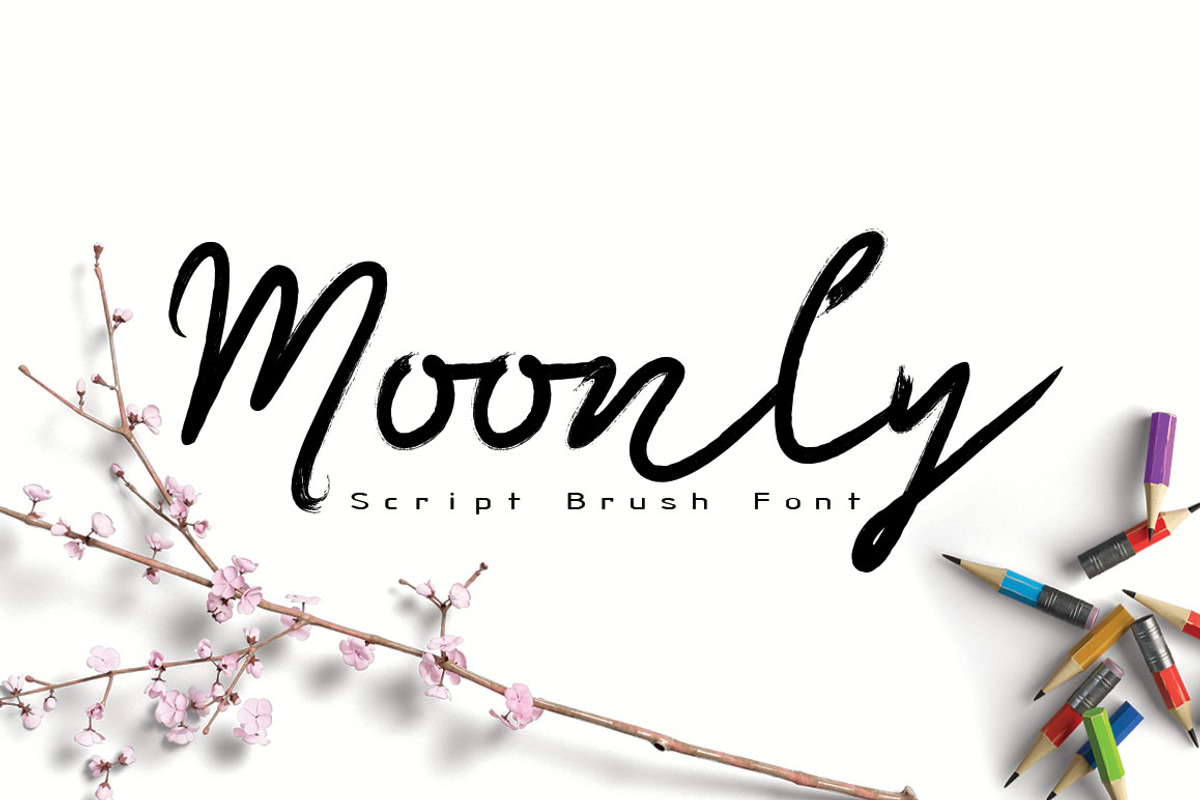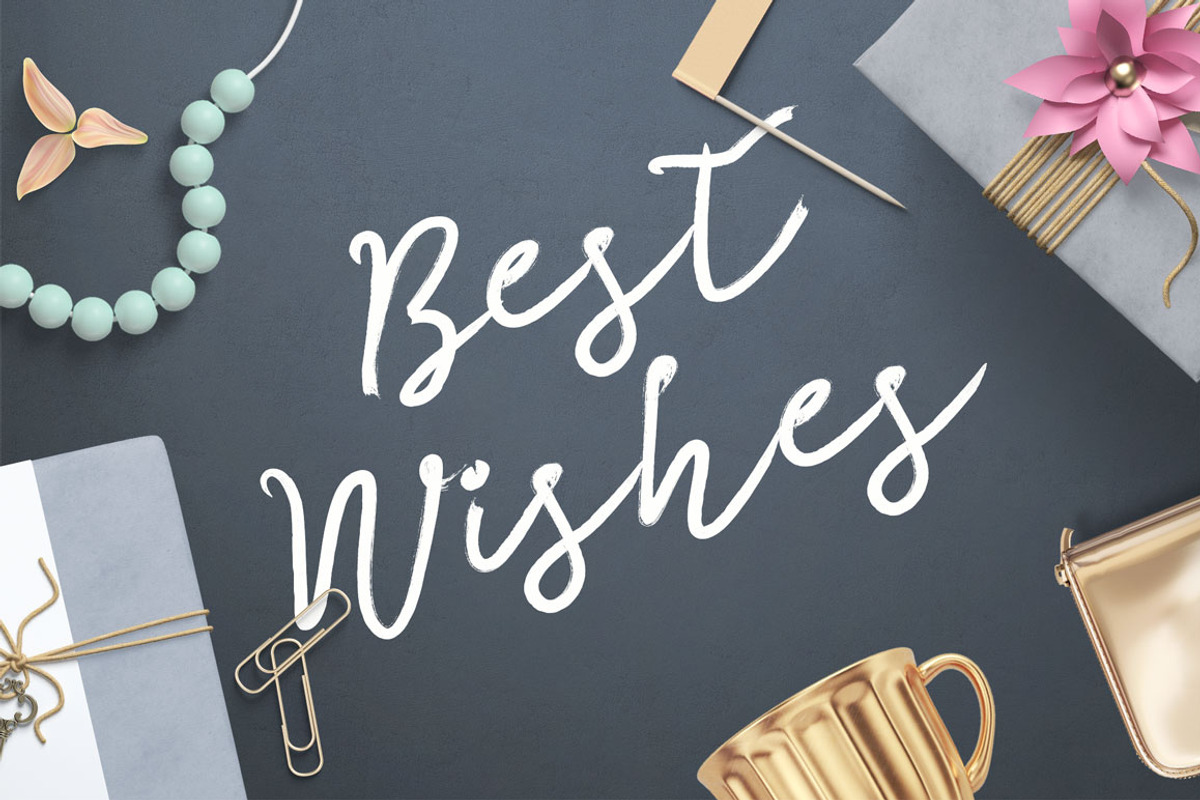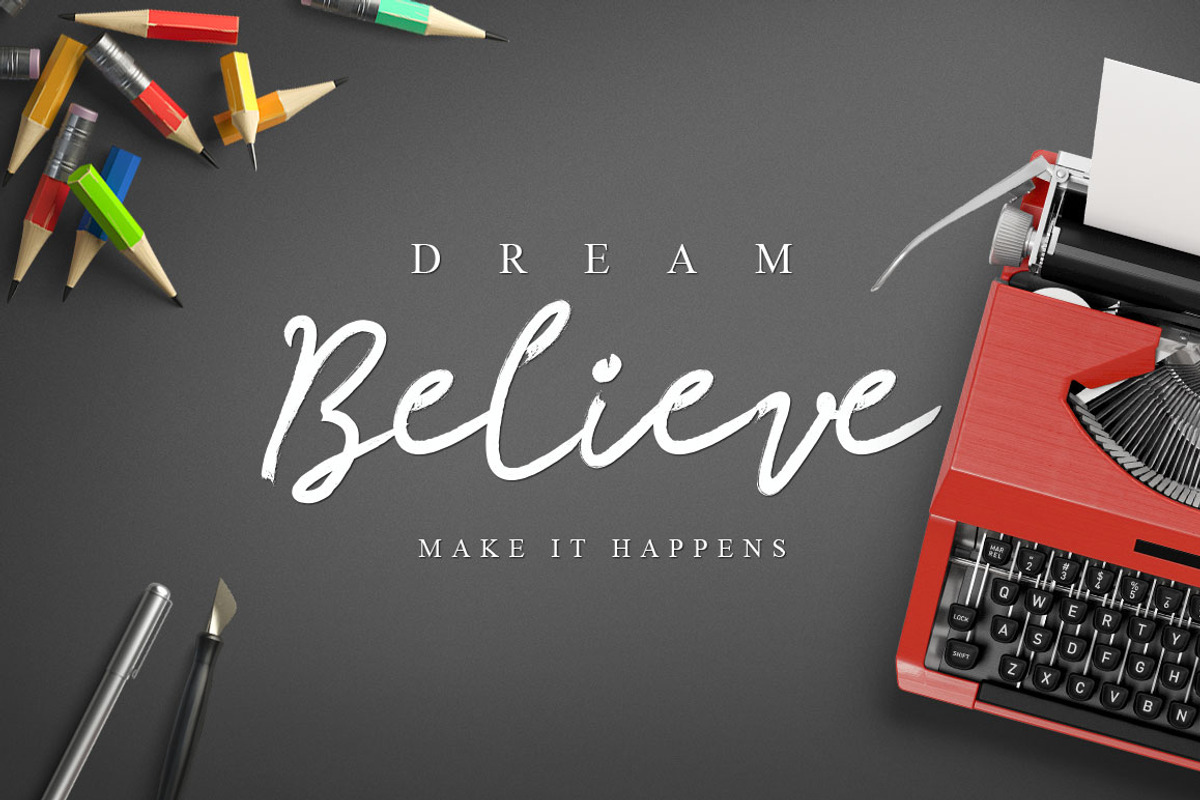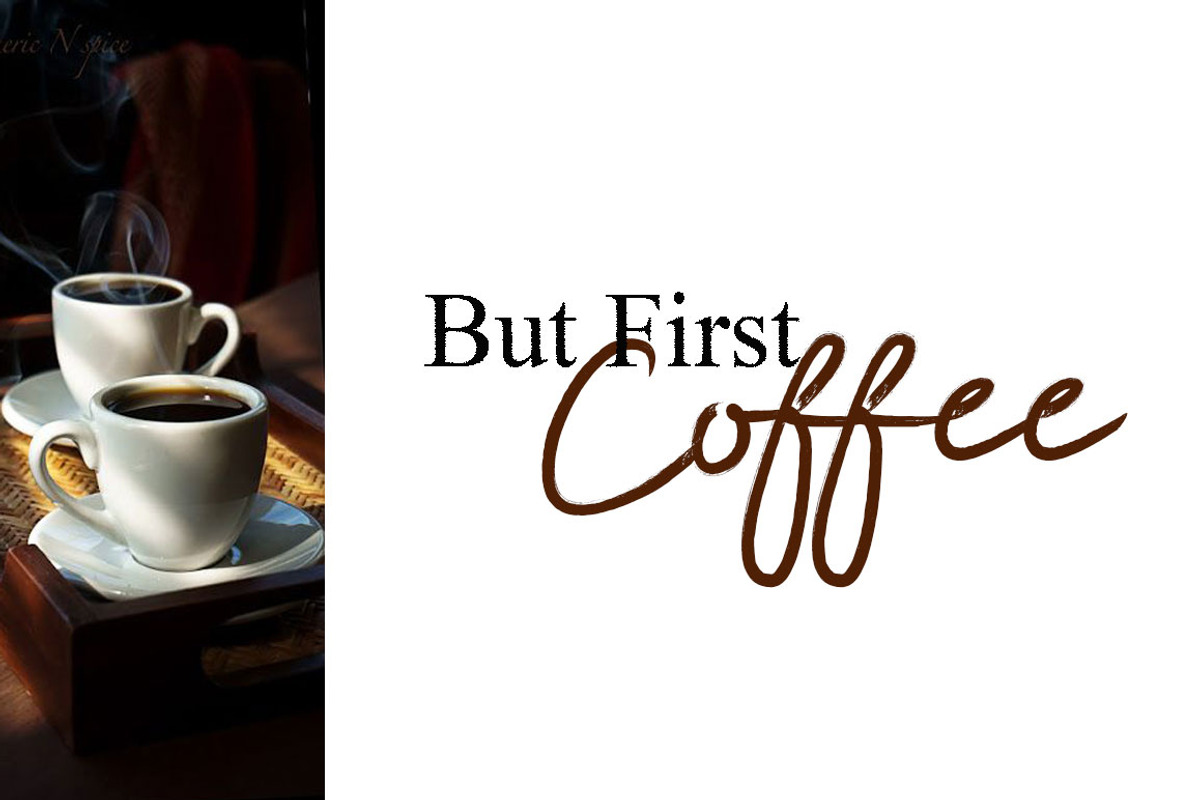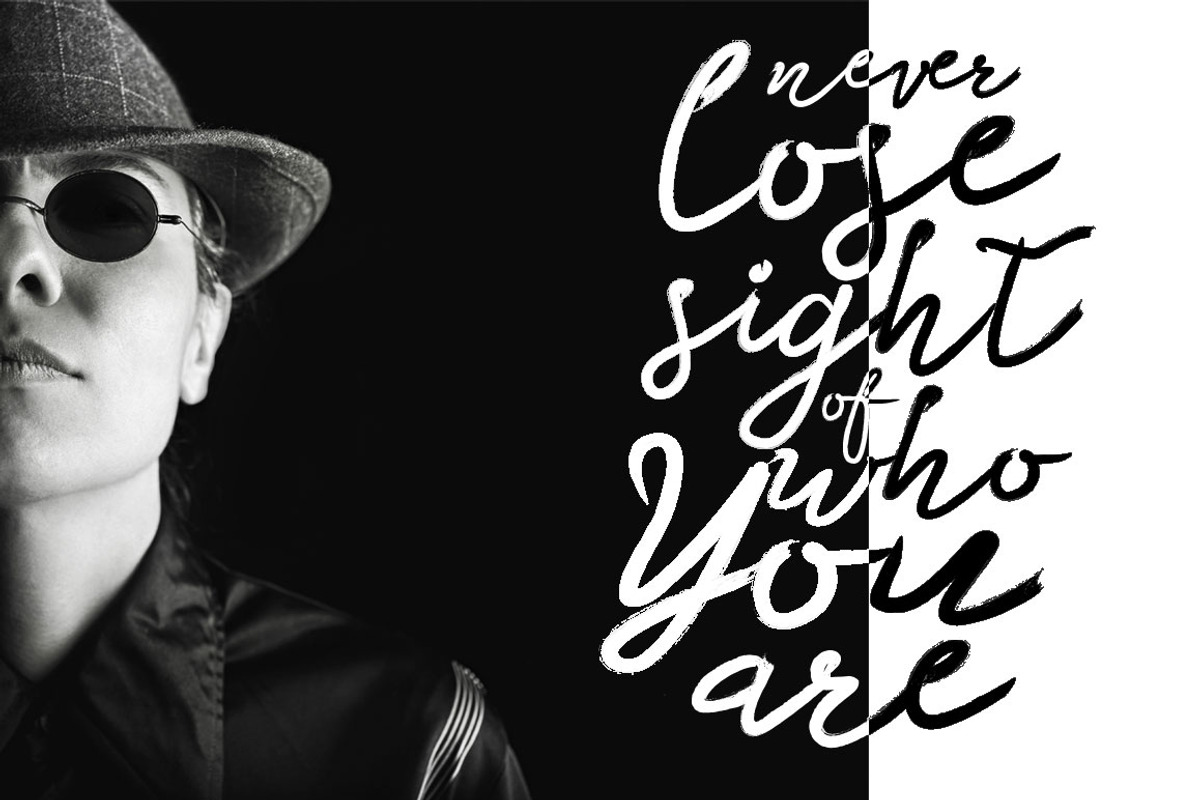
Moonly Typeface
Moonly is script brush font which extraordinary hand written look & just the right amount of brush feel. Harmonizing between irregular and rush style to help you produce the look of wacky custom hand-lettering. Moonly is just what you've been looking for!
Use Moonly on all of your projects to give it an inconsistent hand brushed font. In particular would look great on, branding projects, logos, product packaging, posters, invitations, greeting cards, titles, blogs, everything that includes personal charm and you name it. ;)